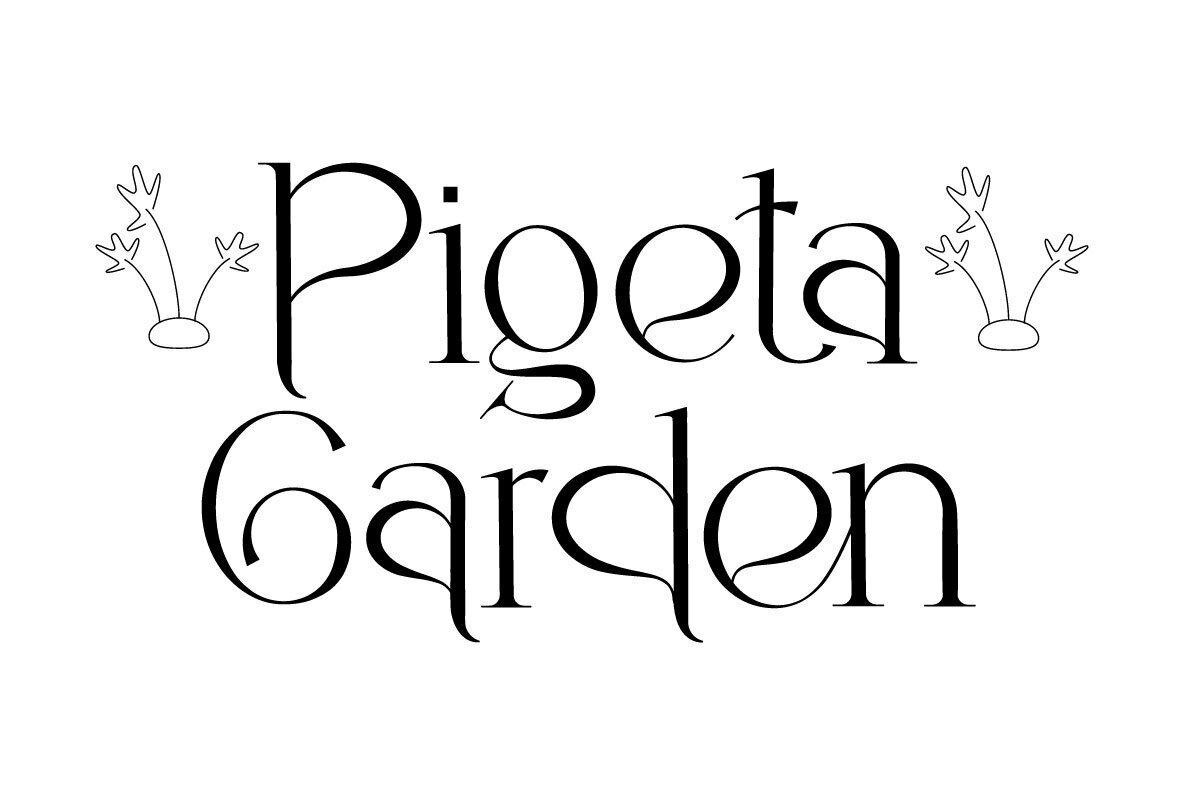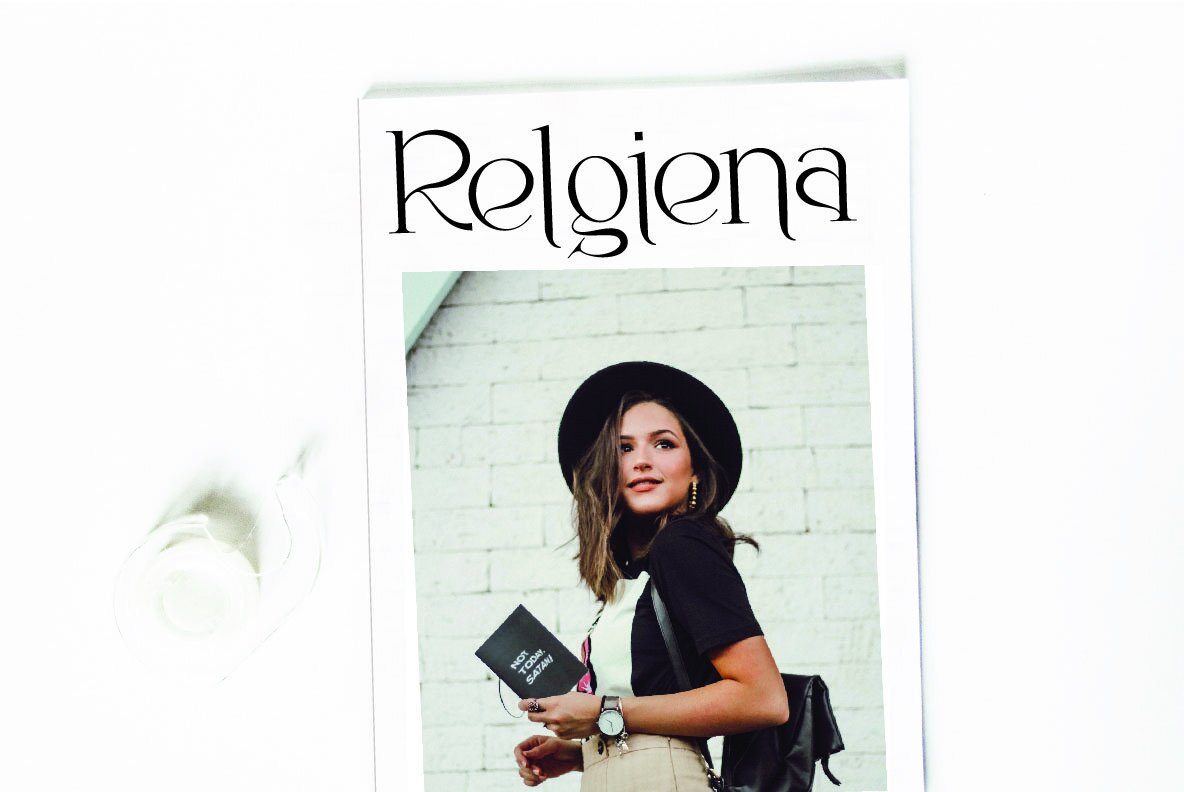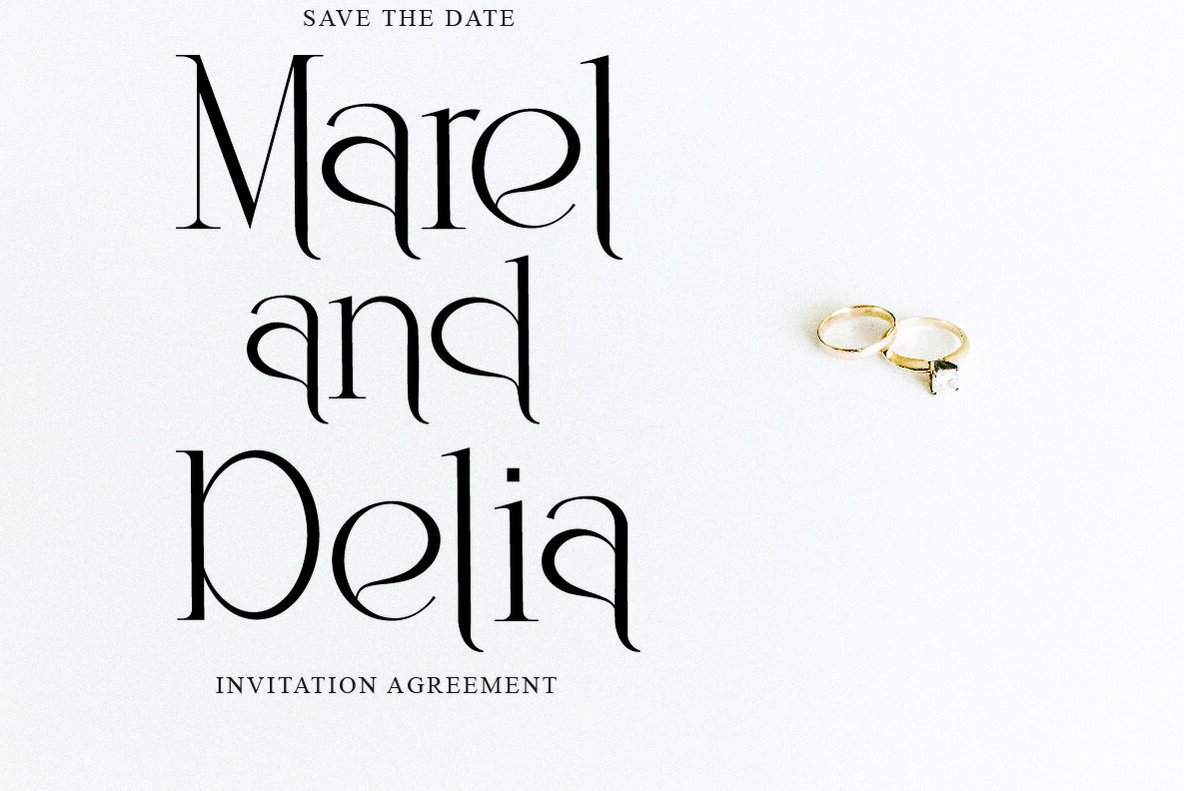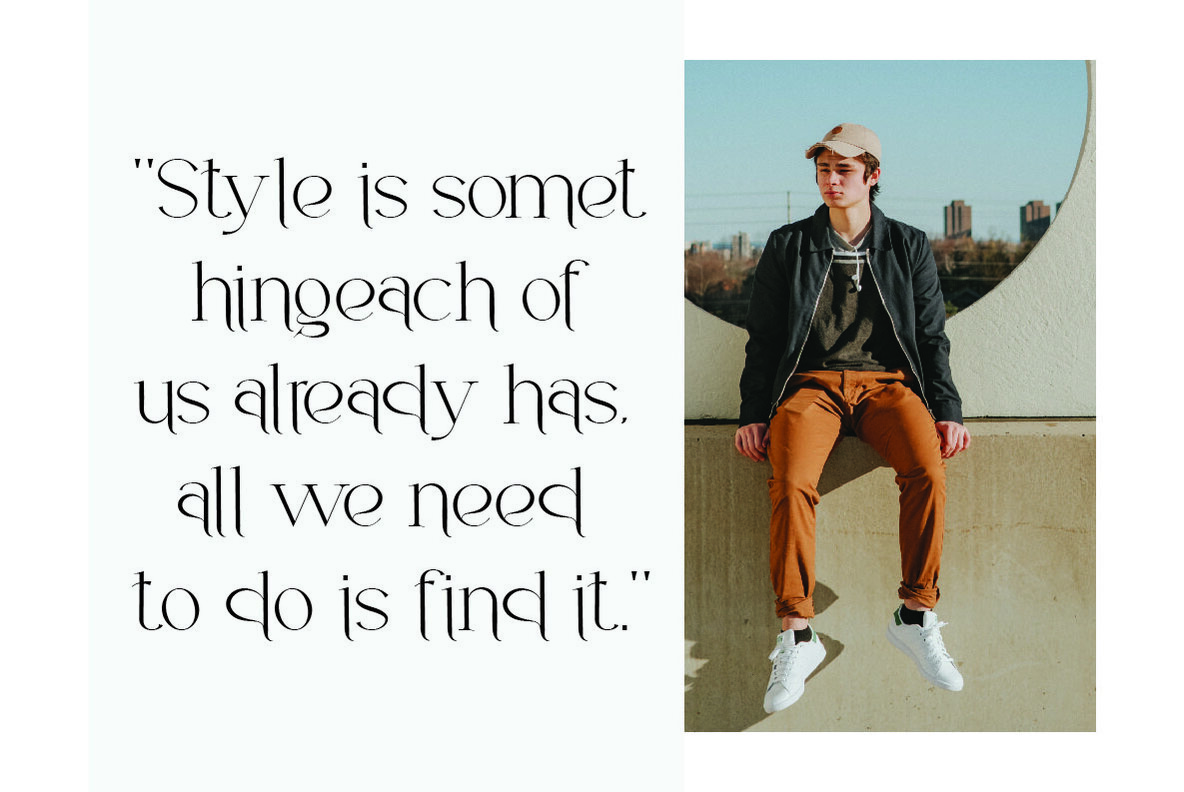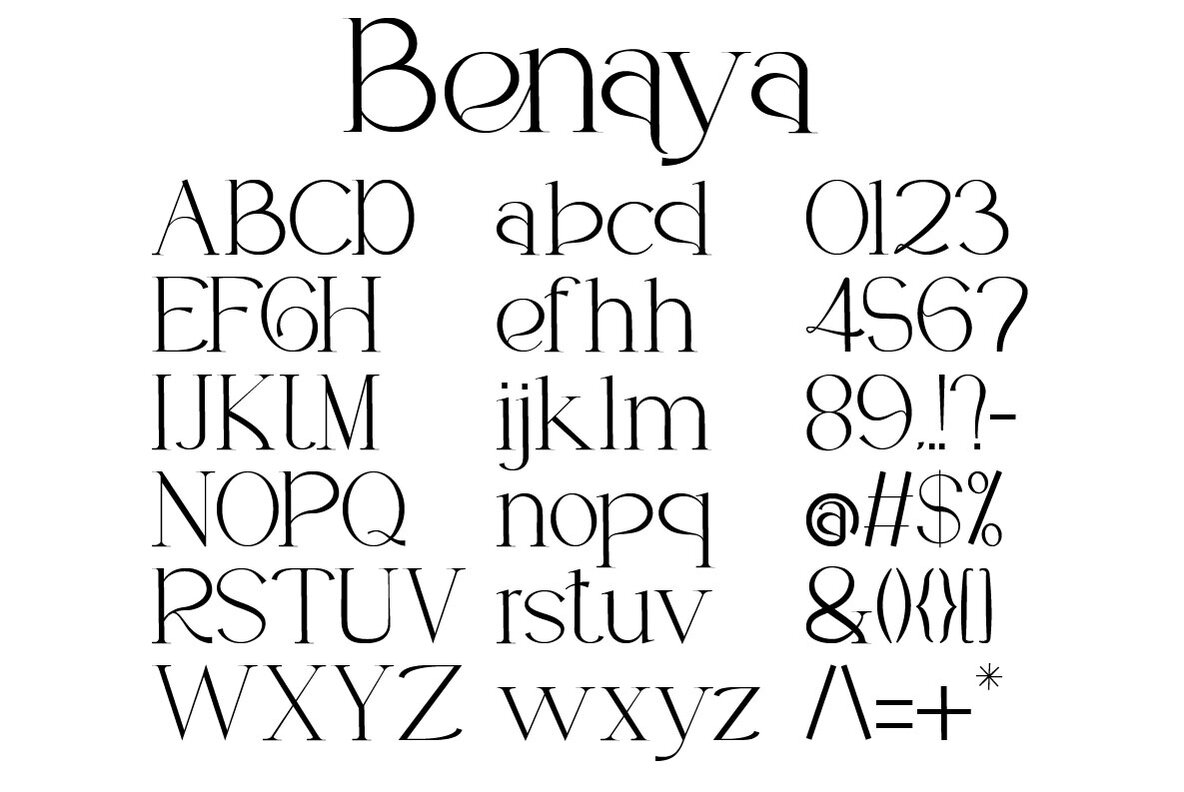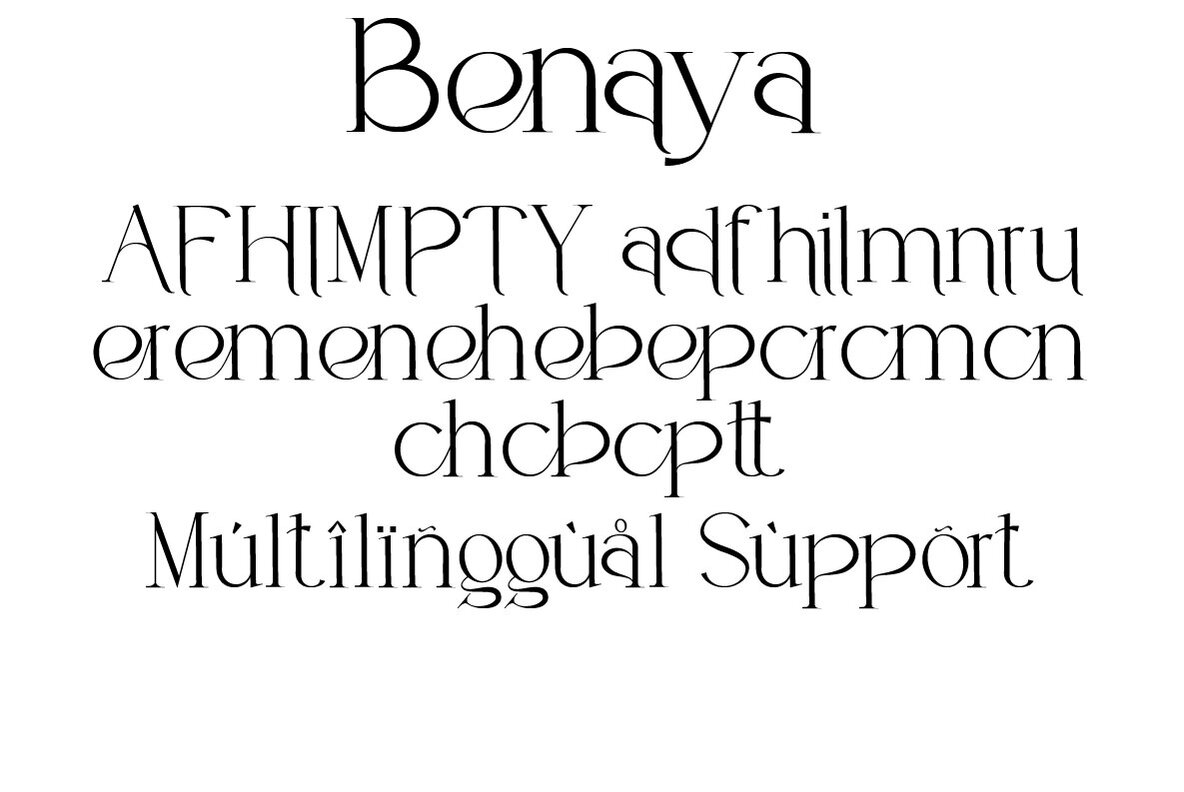
Benaya Font
Benaya
Benaya, crafted with precision by Muksal Creative, is a modern display serif font that adds a touch of sophistication to any project. Ideal for those who wish to bring a sense of realism to their creative ideas, this font captures attention with its striking features and elegant details.Benaya: A Modern Display Serif for Spectacular Designs